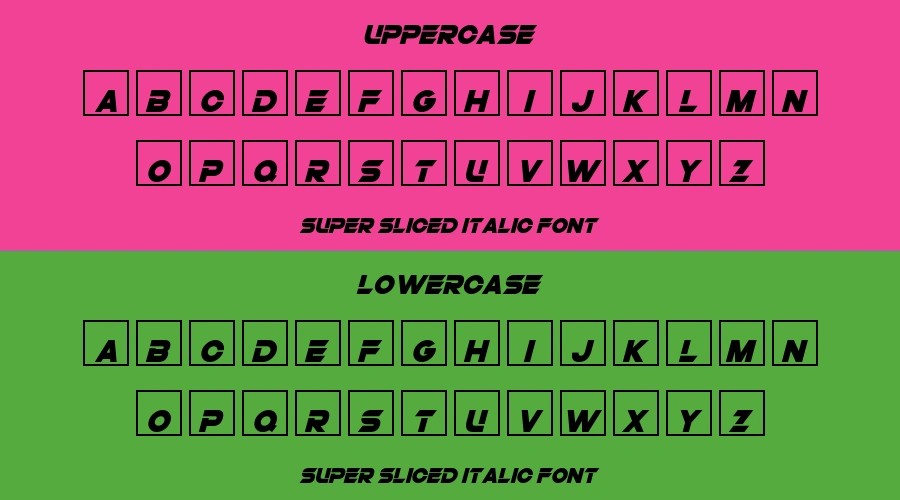
About Super Sliced Italic Font
Super Sliced Italic Font represents a sophisticated approach to type design, balancing assertive angles with functional clarity. Perfect for merchandise graphics, this font family showcases impressive adaptability and uniqueness throughout its character set. Designers appreciate its versatility and reliability.
Designers will appreciate nuanced touches including angled joins and numerator/denominator, adding sophistication to any project. These features become apparent in image captions, where screen rendering matters most. The careful treatment of vertex treatment and contemporary relevance ensures optimal performance.